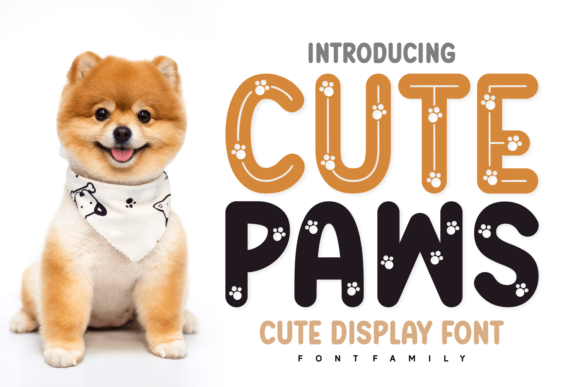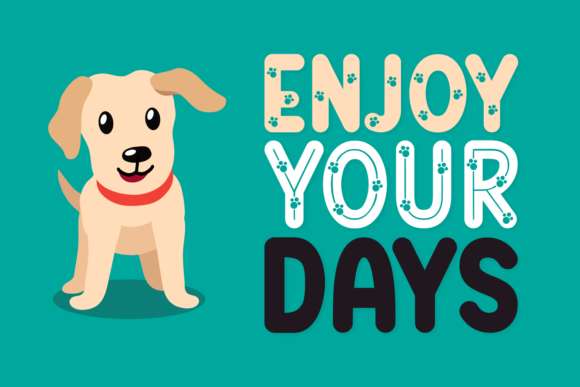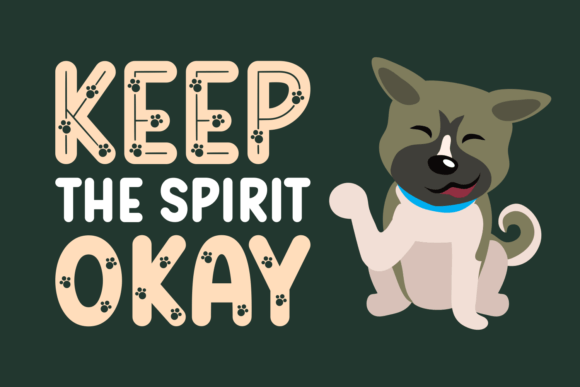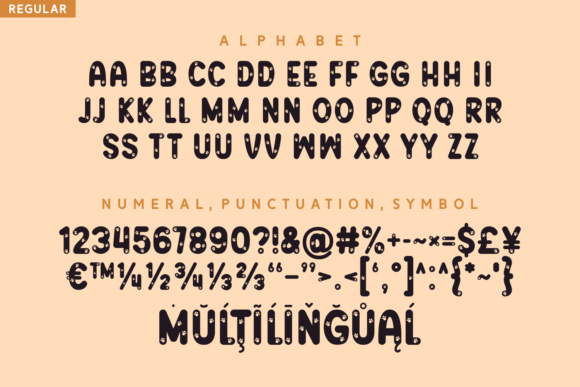
Cute Paws Font: A Playful Display Font for DIY & Cricut Projects
About the Cute Paws Font
The wait is over! The incredible Cute Paws Font is now available for your design toolkit. Cute Paws is a sweet and adorable decorative font. Whether you use it for cartoon-related designs, children’s games, or just any creation that requires a lovely touch, this font will be an amazing choice.
Cute Paws excels in projects requiring a playful and friendly aesthetic. Ideal applications include children’s books, branding for pet-related businesses, playful packaging designs, and social media graphics. Its charm is best showcased in headlines, short phrases, and logos, rather than extended body text. Avoid using it for lengthy paragraphs or user interface elements where readability is paramount.
Pair Cute Paws with a clean sans-serif like Open Sans for a balanced contrast, or a rounded geometric sans-serif like Lato for a more cohesive, modern feel. For a touch of elegance, consider pairing it with a delicate script font such as Great Vibes, though use sparingly to maintain visual clarity.
The font’s overall personality is undeniably cheerful and approachable. Its whimsical character makes it unsuitable for projects demanding sophistication or seriousness.
Cute Paws Font Usage Examples
Cute Paws Font Example